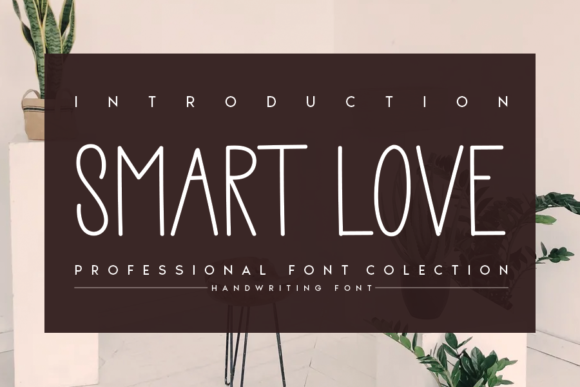
Welcome to the world of Smart Love Font! Created by andikastudio, this font is the perfect addition to your graphic design toolkit. Smart Love Font is a minimalist and tidy sans serif font that is guaranteed to capture your attention. If you are searching for the best fonts for graphic design, look no further than Smart Love.
One of the standout features of Smart Love Font is its versatility. It can be effortlessly matched with an incredibly large set of projects, giving you the flexibility to add it to your creative ideas and see how it can make them stand out. This font is perfect for any designer looking to elevate their projects and make them shine.
With its clean and modern design, Smart Love Font is a great choice for those who want to create a polished and professional look. Whether you are designing logos, creating social media graphics, or working on a website, this font is sure to make your project look sleek and sophisticated.
Smart Love Font is not just a font; it's a way to evoke emotions and make a statement. It is perfect for designers who want to make a bold statement with their work. The font is perfect for a wide range of projects, including branding, packaging, invitations, and much more.
In conclusion, if you are looking for the best fonts for graphic design, Smart Love Font is a must-have. Its minimalist design, versatility, and ability to make a statement are just some of the reasons why it is an excellent choice for any project. So, what are you waiting for? Download Smart Love Font today and take your graphic design game to the next level!